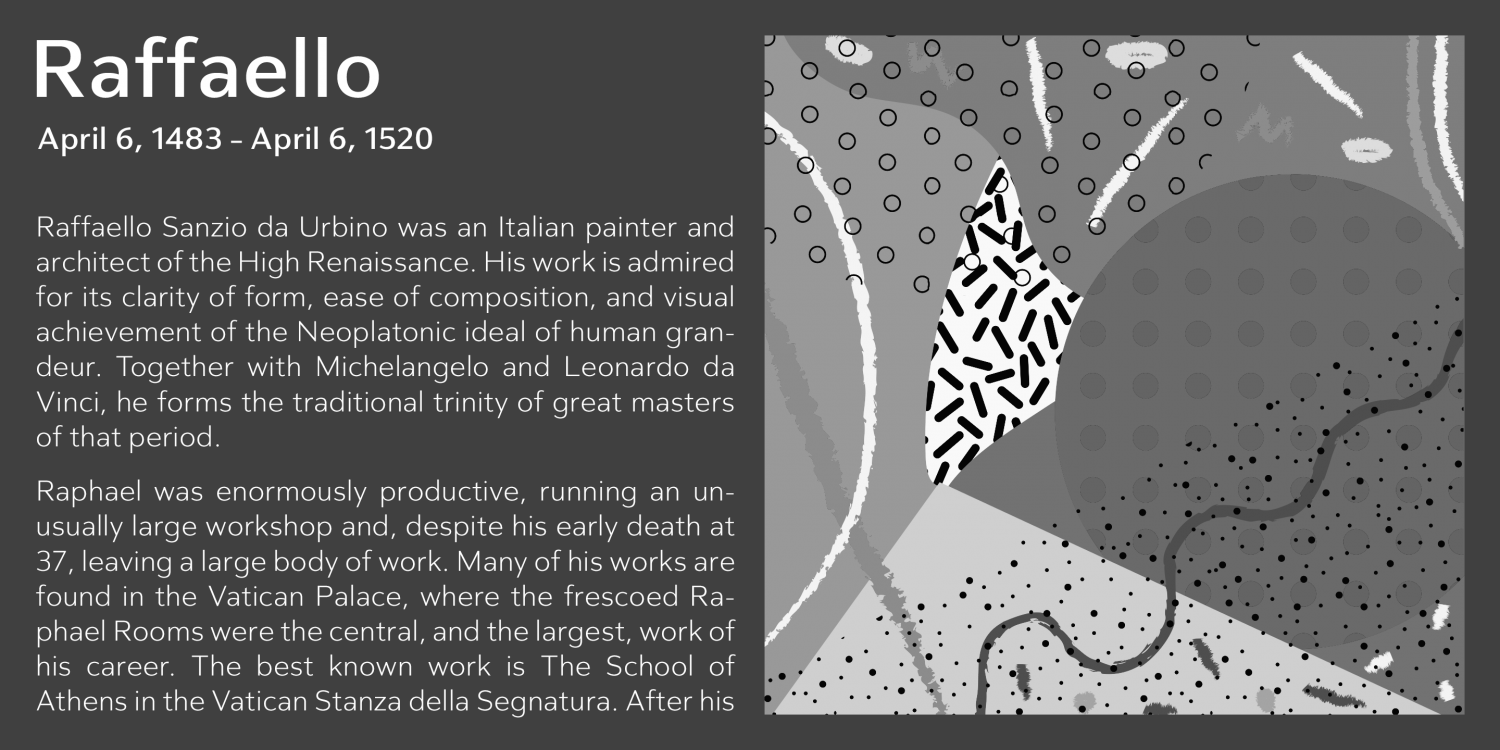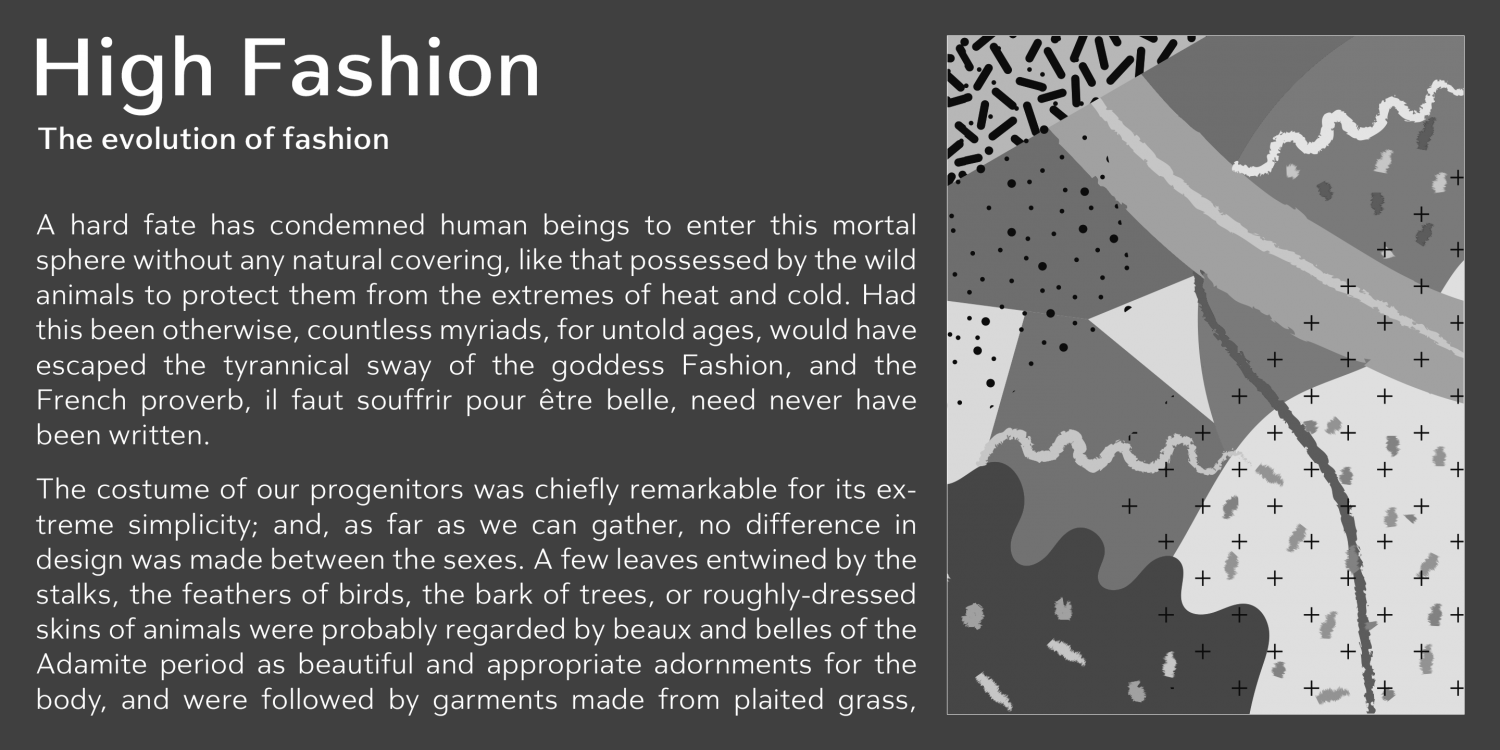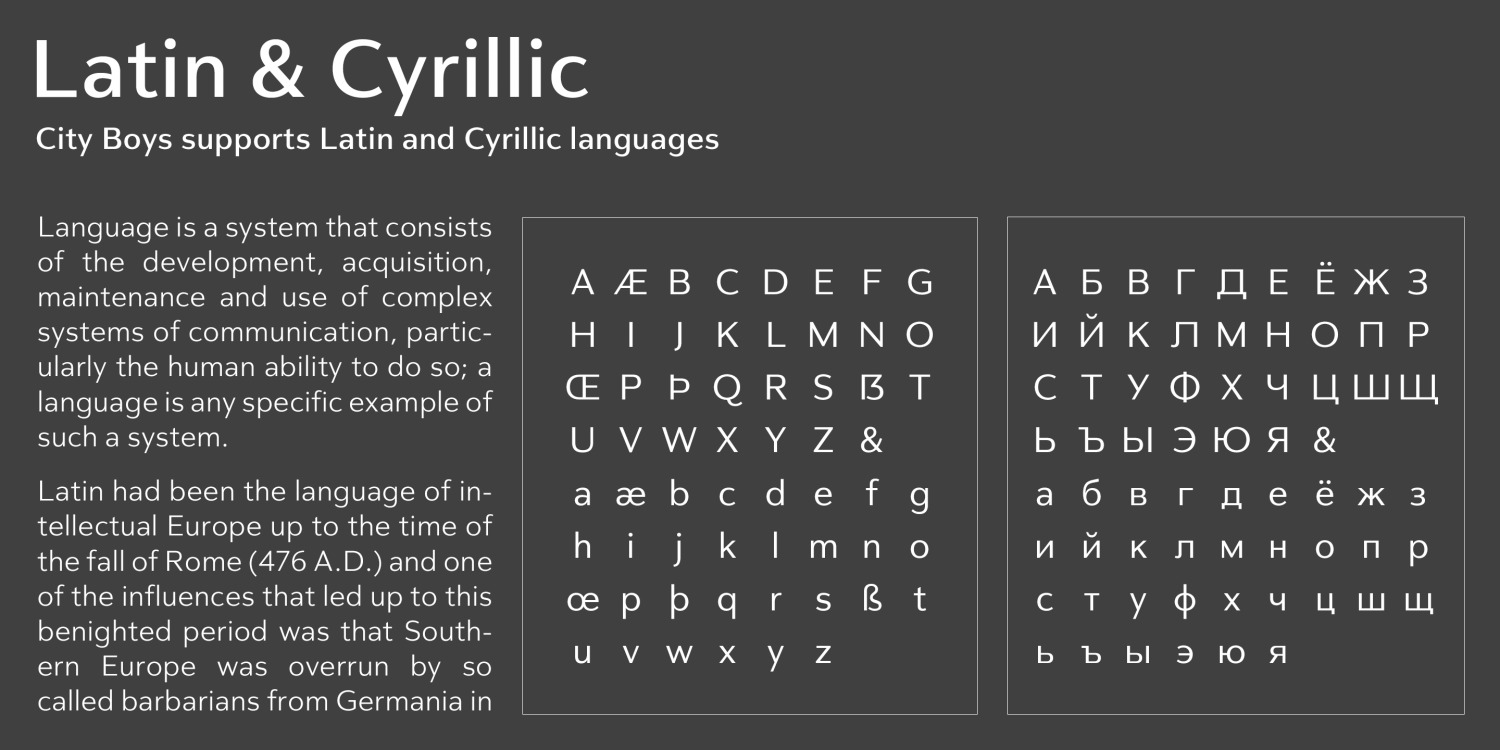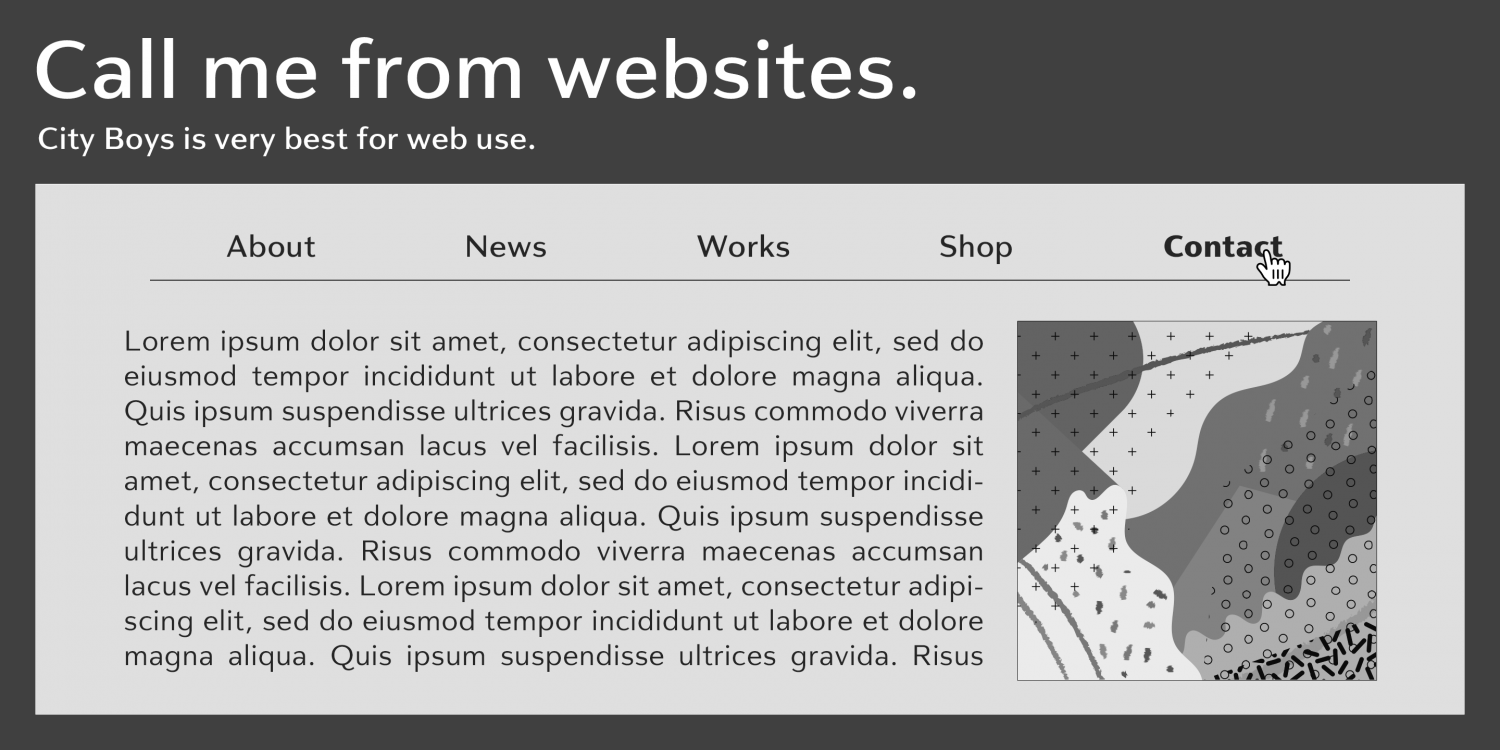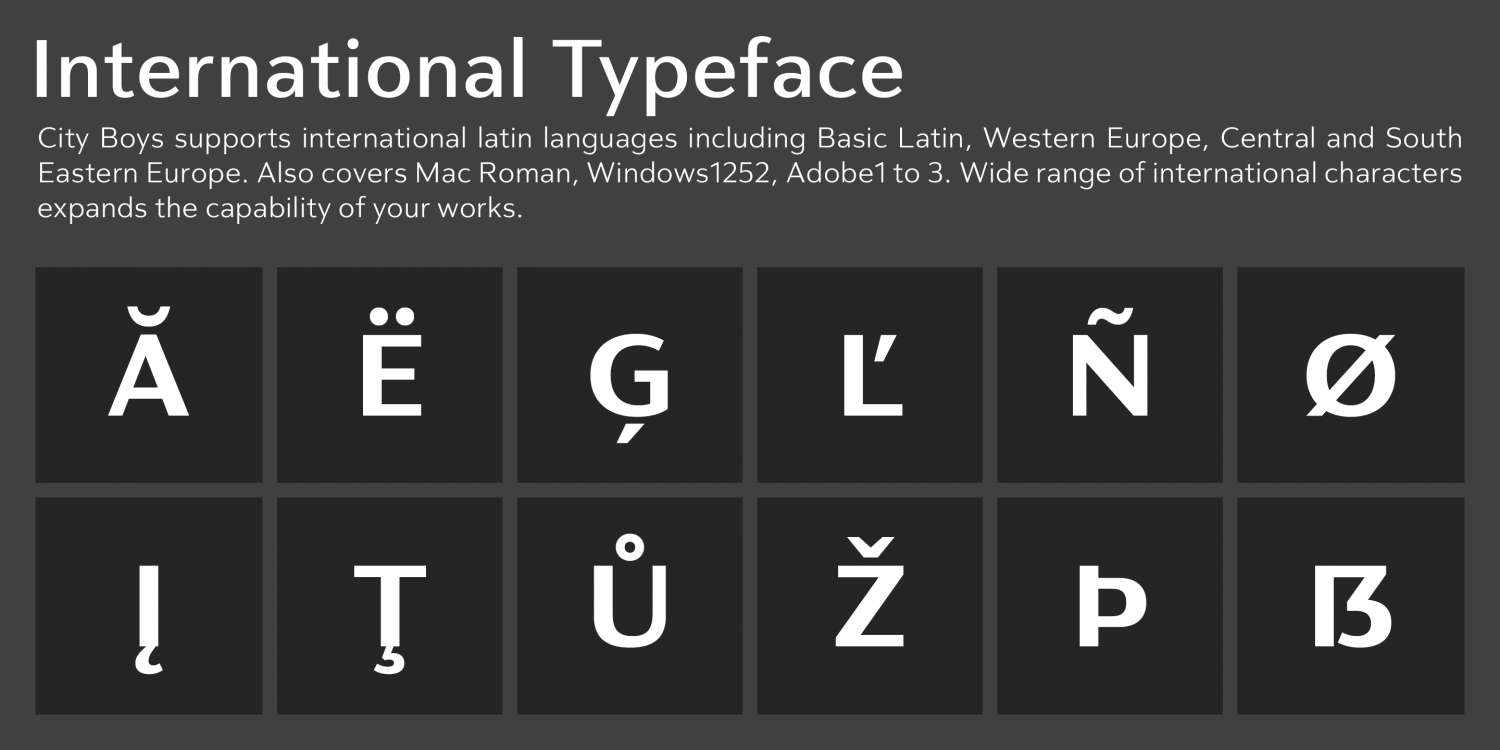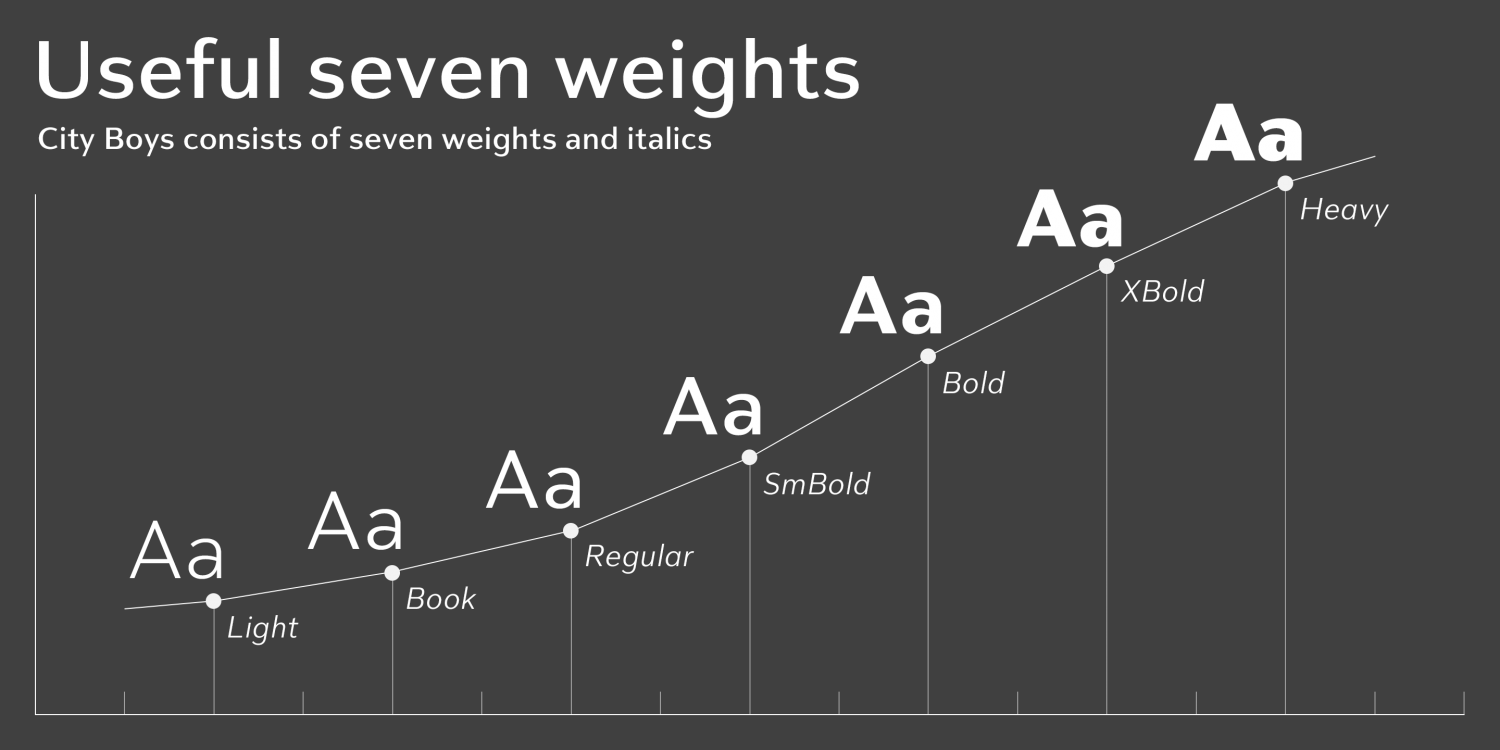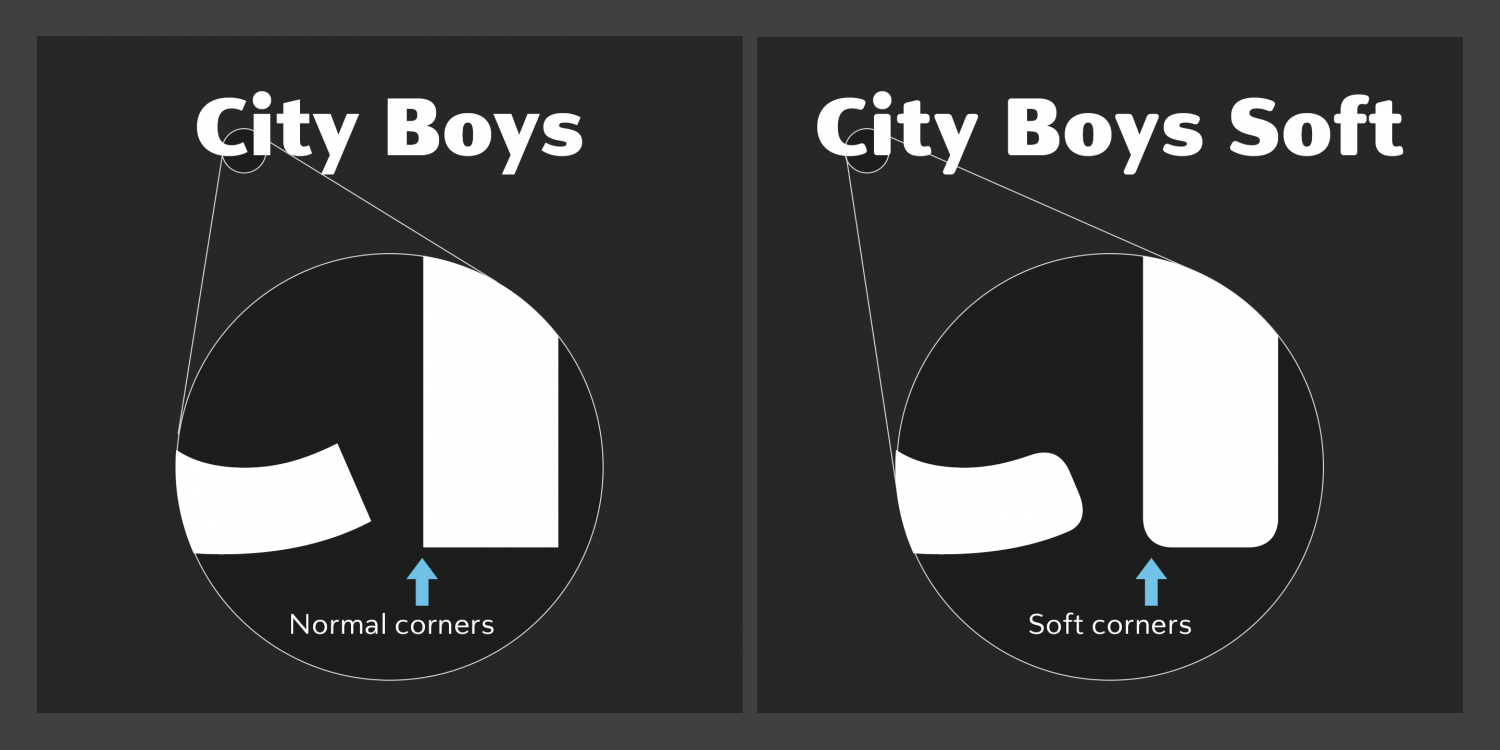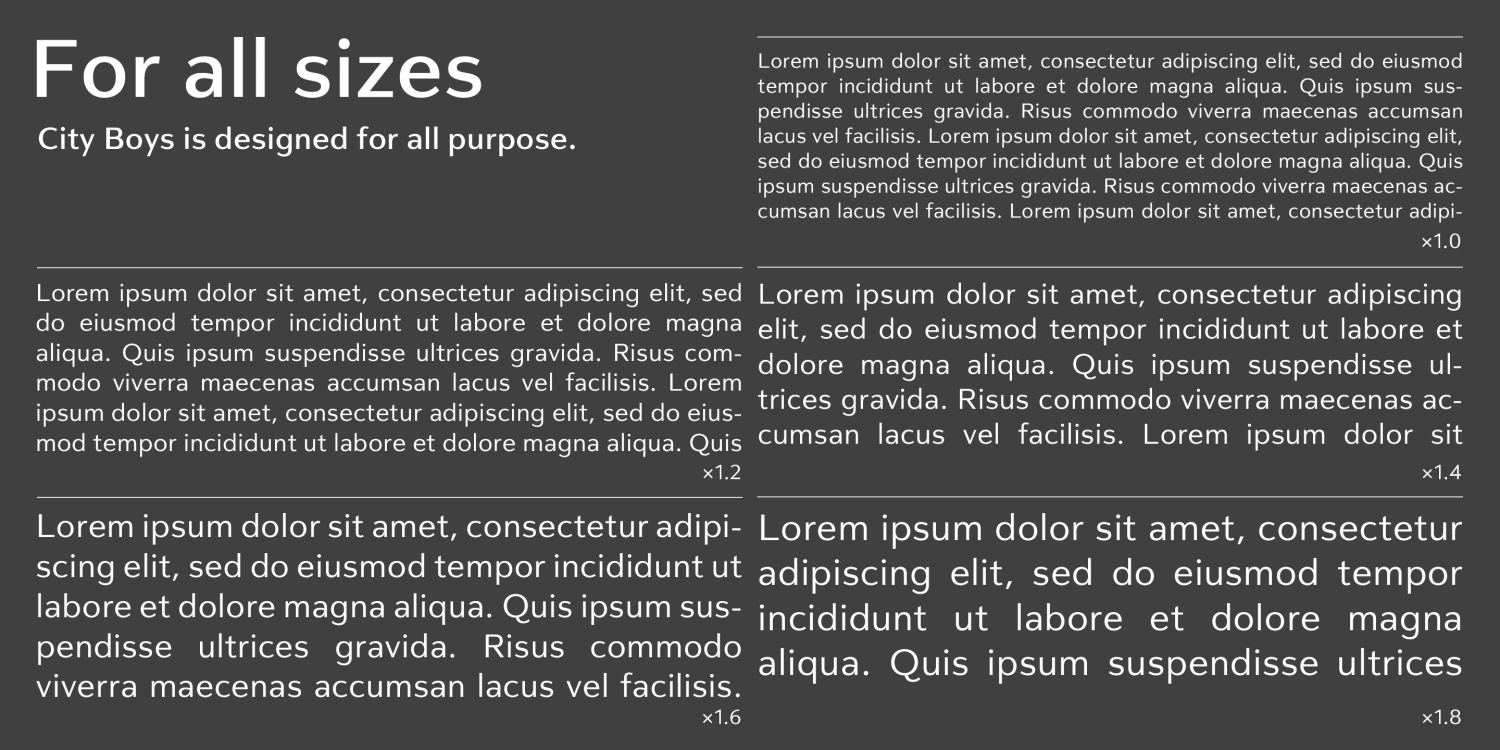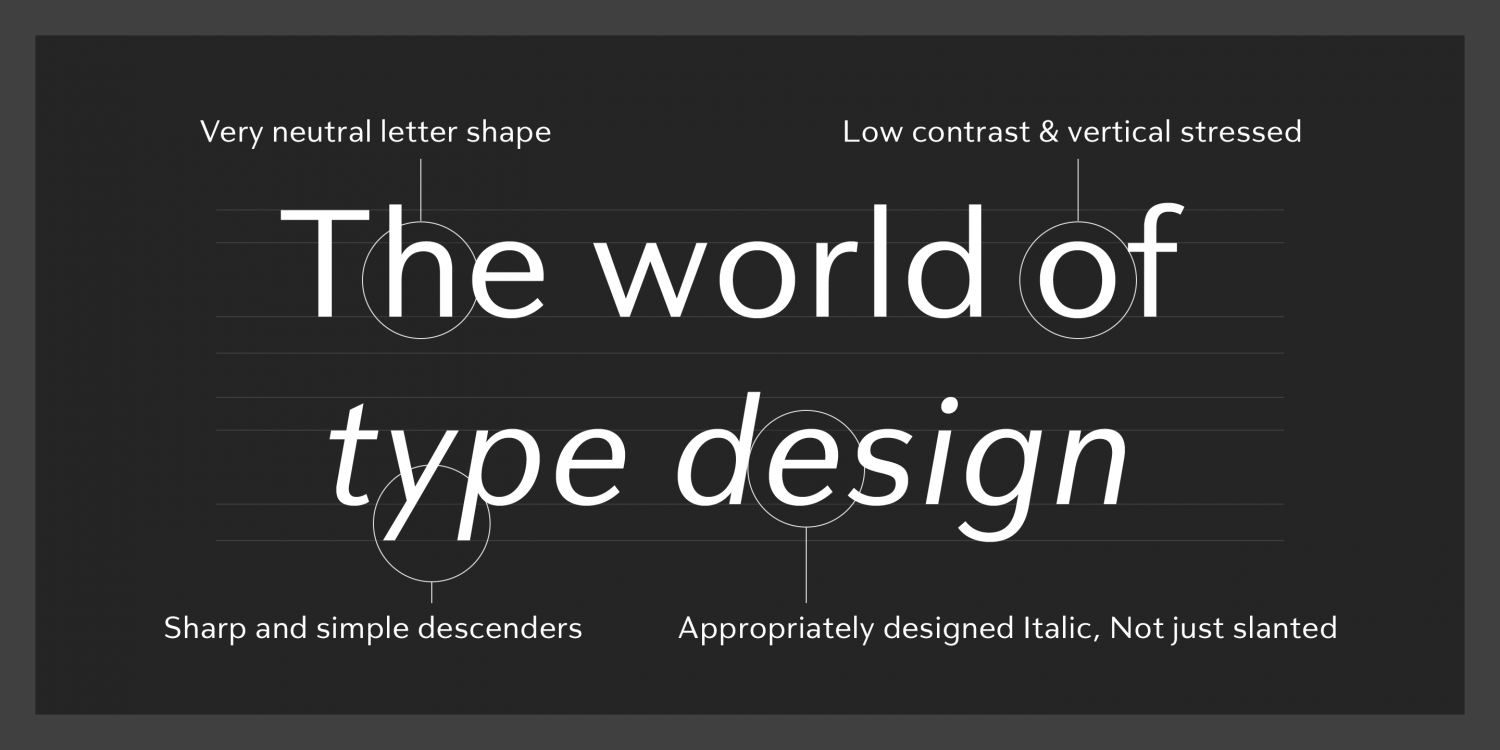
City Boys
City Boys is a fashionable, contrasted sans-serif typeface designed for modern versatility. With its clean structure and stylish contrast, it’s suitable for nearly any application—from web and digital to print and merchandise.
Its letterforms are basic, natural, and neutral, built on a well-balanced skeleton that supports a wide range of usage.
The design leans slightly humanist, but features vertical stress, giving it a sophisticated and contemporary feel.
The contrast ratio has been carefully calibrated to ensure clarity and elegance, even at small sizes or across screen and print media.
The City Boys family includes 7 weights with matching italics, offering flexibility across headings, body text, branding, and beyond.
It supports a broad spectrum of international Latin and basic Cyrillic languages, including Basic Latin, Western, Central, and South-Eastern European scripts. Compatibility with Mac Roman, Windows-1252, and Adobe Latin 1–3 encodings ensures reliable use across global platforms.
For a softer, more approachable tone, check out City Boys Soft—the rounded-corner companion to the original City Boys family.